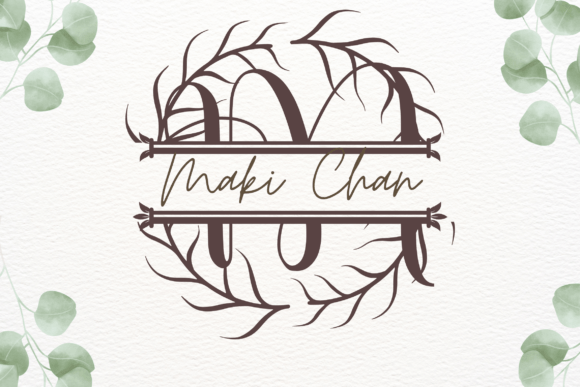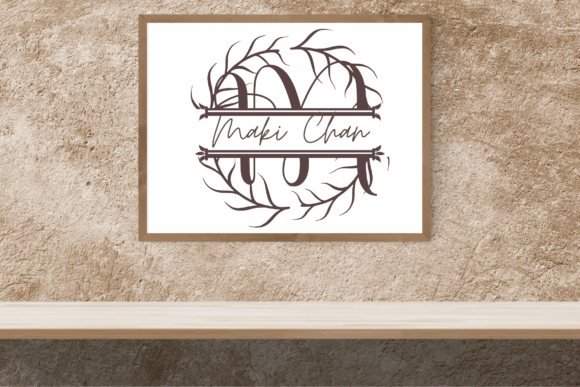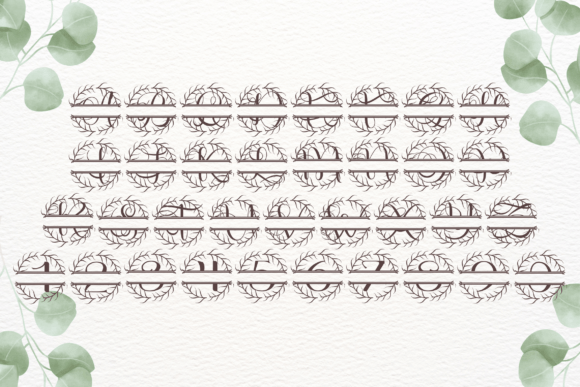
Designing with Whimsy: Unveiling the Botanest Split Monogram Font
Have you ever been brainstorming a creative project and suddenly, the perfect idea strikes? Maybe it’s a custom wedding invitation, a personalized birthday sign, or a unique branding element. Whatever it is, the excitement of bringing your vision to life can be thrilling. As designers, we’re always on the lookout for fonts that add a touch of personality to our creations.
That’s where the Botanest Split Monogram Font comes in – a sophisticated serif monogram font that combines timeless elegance with natural charm. This versatile font features a clean split design, perfect for personalizing with names, dates, or short words. Its versatility makes it a valuable addition to any designer’s toolkit, offering endless possibilities for creative expression.
Key Features of Botanest Split Monogram Font
- Unique Split Monogram Design: This font features a distinctive split monogram design, perfect for creating custom logos and branding.
- Customizable: The font’s split monogram design allows for easy customization to fit your brand’s specific needs.
- High-Quality Graphics: The font features high-quality graphics and detailed illustrations, making it perfect for use in a variety of design applications.
- Professional and Elegant Design: The Botanest Split Monogram Font features a professional and elegant design, making it suitable for use in corporate branding, wedding invitations, and other formal events.
Botanest Split Monogram Font Review
When I first laid eyes on Botanest Split Monogram Font, I was immediately drawn in by its whimsical and elegant design ✨. The way the letters seem to unfurl from each other is nothing short of magical. I can totally see this font being used in wedding invitations, garden party invitations, or even for branding for a botanical boutique.
The font is highly customizable, which is a major plus in my book. You can adjust the size, spacing, and even the color of the monogram to fit your design needs ✨. The font is also very versatile, and can be used for both digital and print projects.
Limits and Potential Drawbacks
While I love the Botanest Split Monogram Font, I do have a few reservations ⚠️. For one, it can be a bit difficult to read, especially in smaller sizes. This may be a problem for some designers who need to use the font in a variety of contexts.
Another potential issue is that the font can be a bit too “flowery” for some tastes. While I personally love the floral feel of the font, it may not be to everyone’s liking.
In conclusion, I think the Botanest Split Monogram Font is a great addition to any designer’s toolkit ✨. While it may have a few limitations, the font’s unique design and customization options make it a must-try for any designer looking to add a little whimsy to their work.
- Whimsical and elegant design
- Versatile for digital and print projects
- Unique monogram design
The Botanest Split Monogram Font is ideal for:
Botanical or floral-themed designs
Custom logos or branding
Any design that requires a unique, elegant, and sophisticated font.